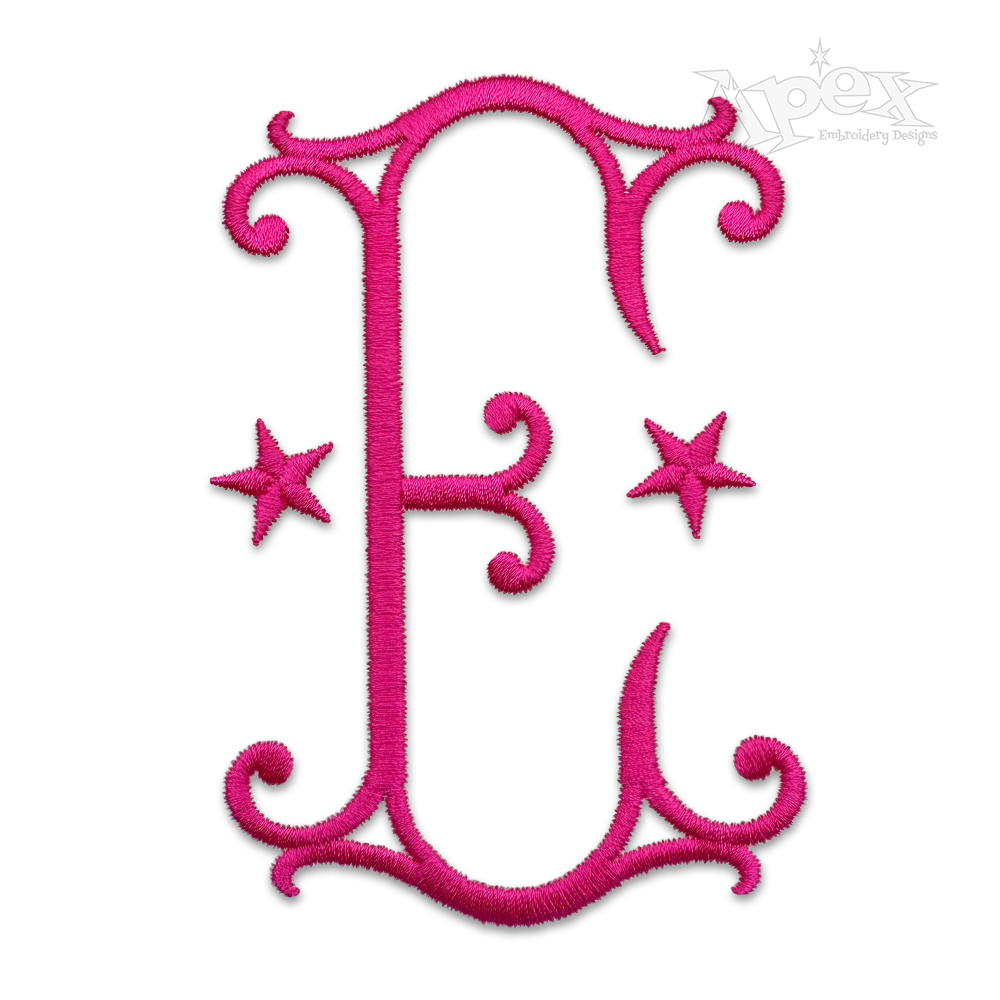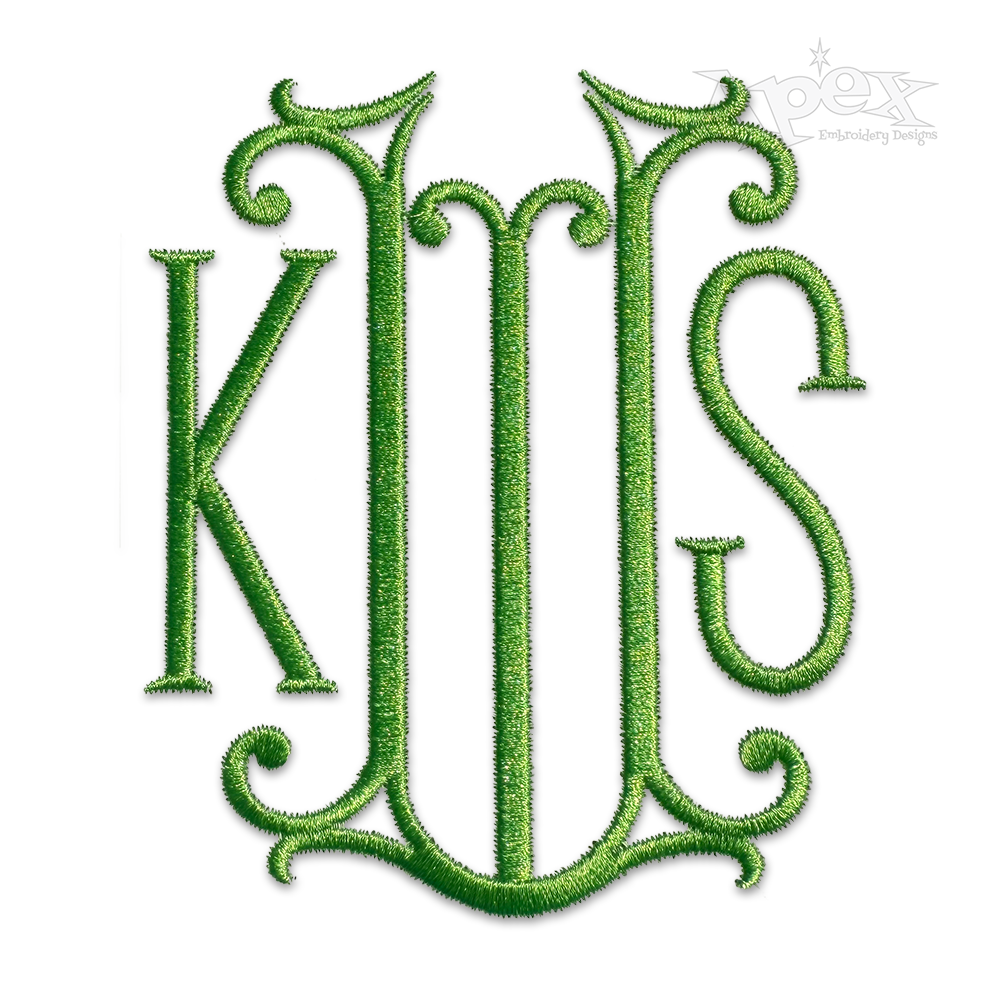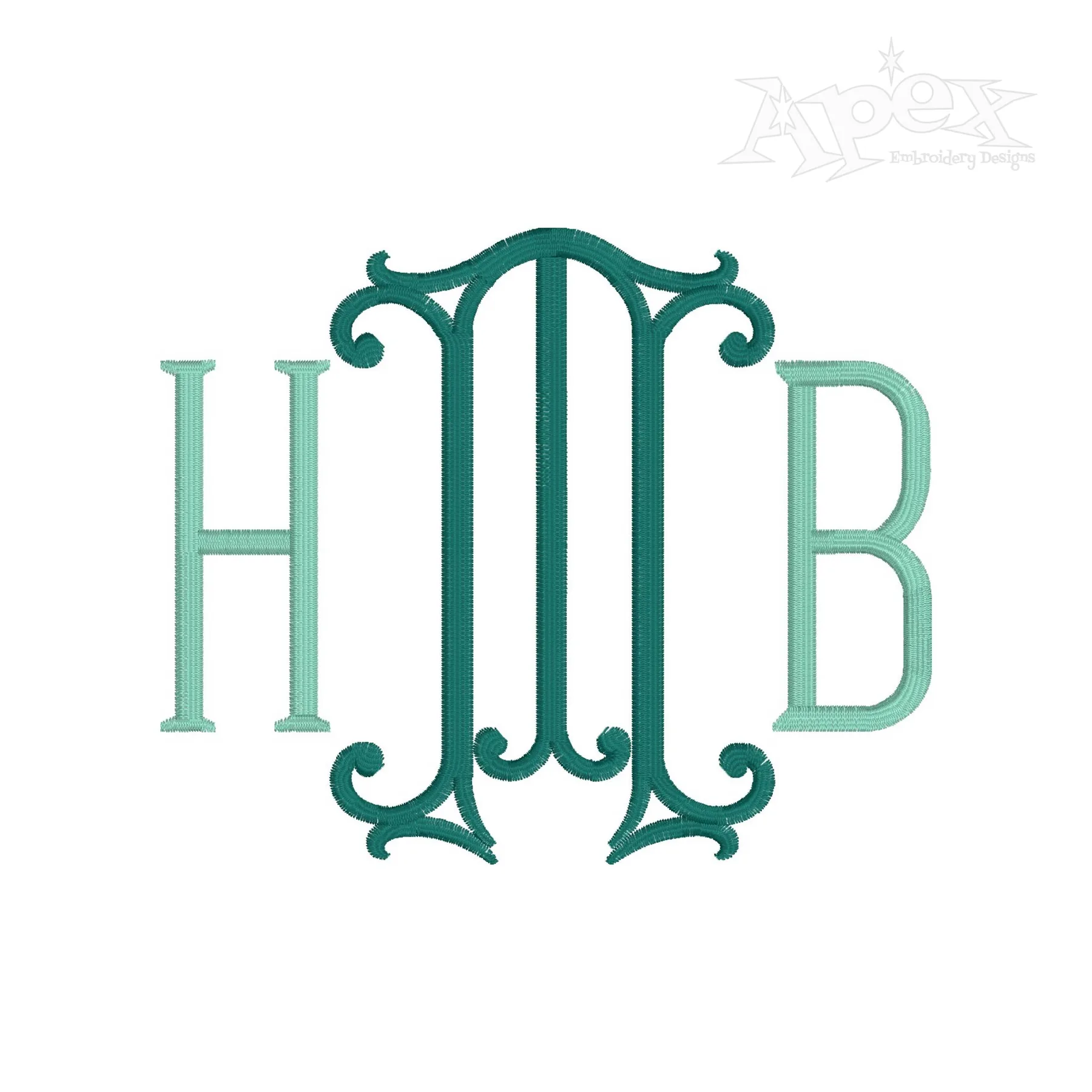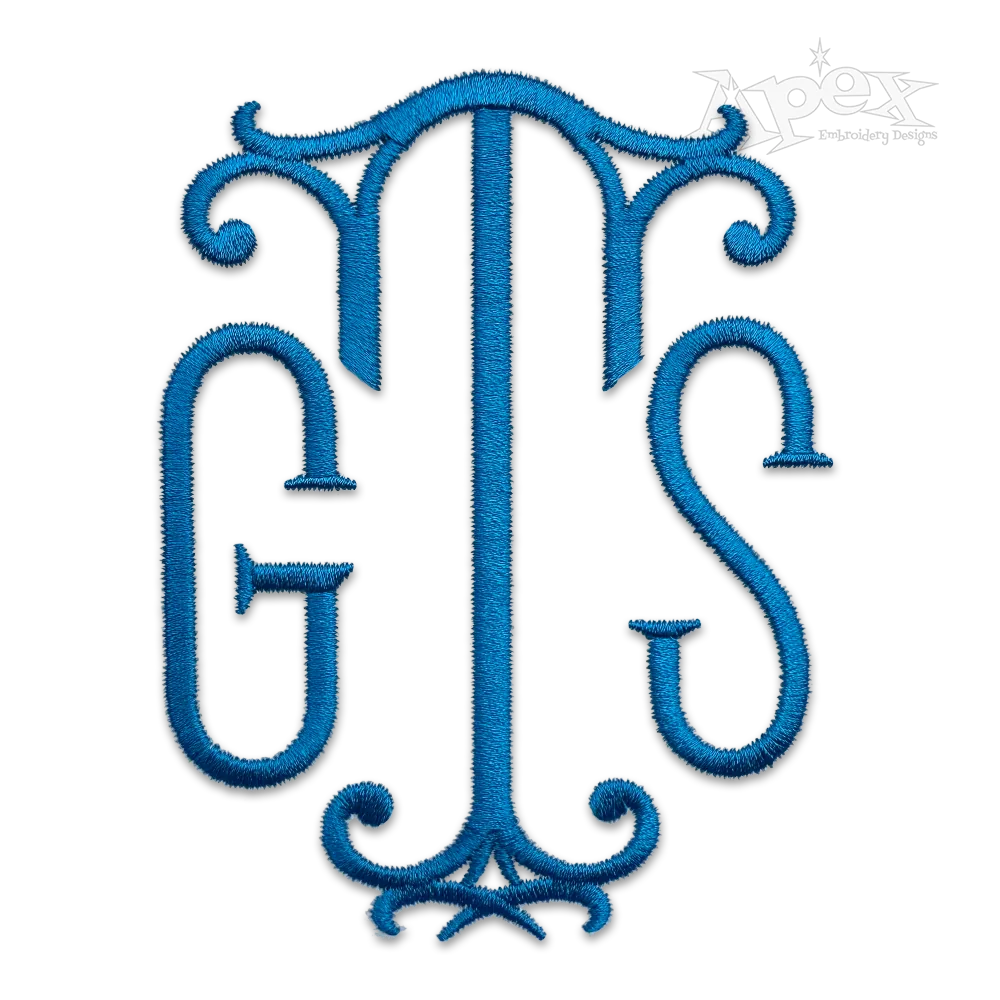
Clairton Monogram Embroidery Font
Born from an appreciation for stately mid-century estate typography and balanced architectural line work, the Clairton Monogram Embroidery Font brings a poised, tailored elegance to modern custom monogramming. In digitizing this alphabet, our mission was to capture the refined spirit of bespoke luxury—creating a clean, commanding letterform that sits proudly on the fabric without feeling overly dense or rigid. Each letter breathes with luminous satin stitch clarity, casting gentle light and shadow across natural woven textiles to elevate personalized gifting into an enduring art form.
Clairton Monogram Craft & Letterform Details
True embroidery mastery lies in the unseen mechanics of stitch architecture. For the Clairton Monogram, we engineered an intricate foundation of directional travel lines and supportive underlay stitches to create a gentle, pillowed crowning effect. This subtle bevel allows light to cascade across the satin surfaces, giving each character exceptional depth and brilliant thread sheen.
Rather than using uniform, automated stitch angles, every curve and junction has been manually manipulated. The satin transitions flow effortlessly around sharp corners and graceful sweeping stems, preserving clean outer margins that stitch out crisply on linen, pique, terry cloth, and canvas alike. The result is a satin stitch alphabet that runs smoothly on your embroidery machine, minimizing thread breaks and delivering the unmistakable hallmarks of true artisan embroidery.